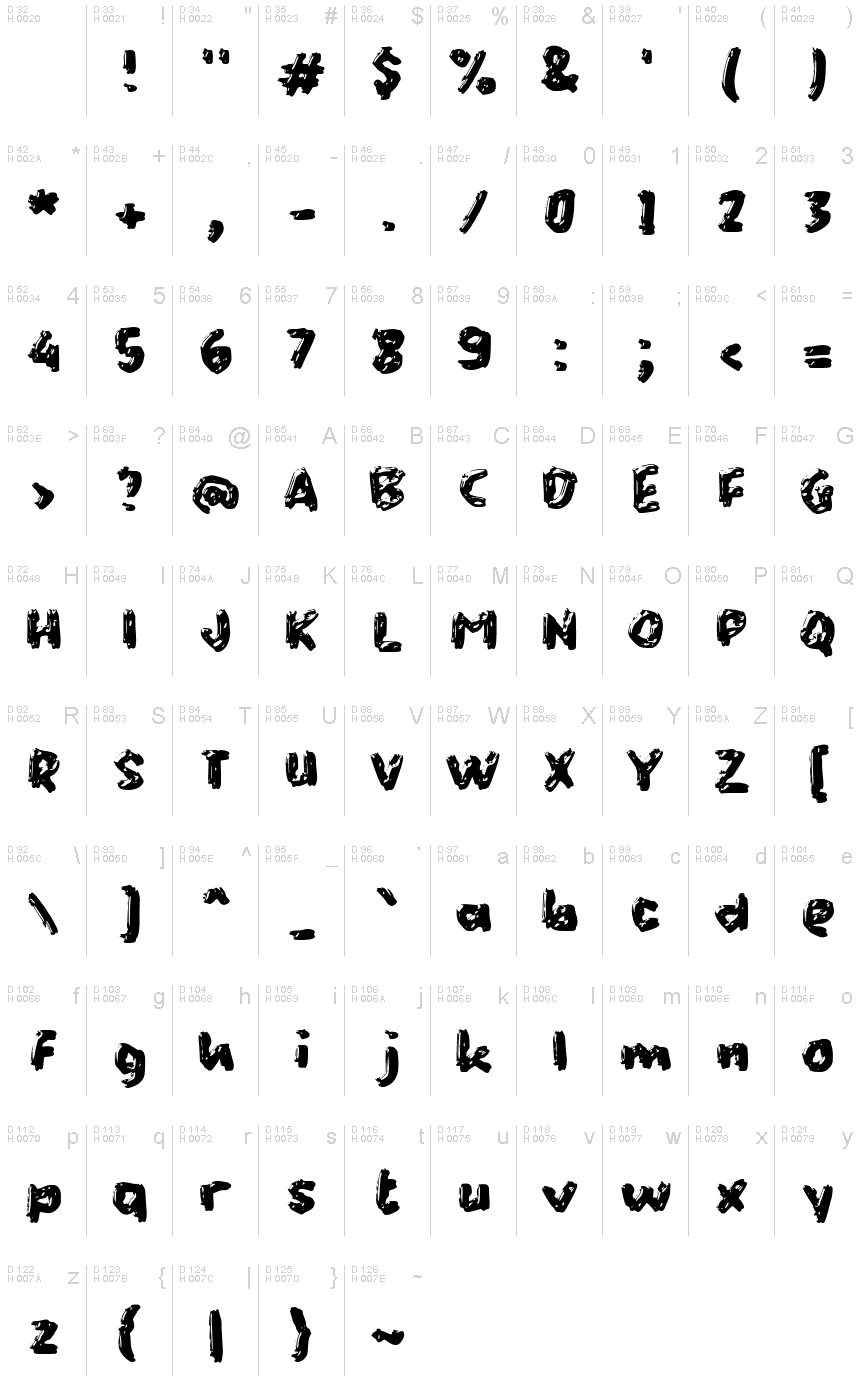
EYAO
EYAO, crafted by the talented designer wep, is an extraordinary display font that adds a touch of vintage charm to any project. With its bold and eroded style, this font is perfect for creating eye-catching logos, striking headlines, and engaging posters. Want to give your brand a unique edge? EYAO's distinctive look will make your designs stand out in the crowd. Whether you're working on a retro-inspired campaign or need to add some grit to modern visuals, EYAO is the go-to font for all your creative endeavors. Let your imagination run wild with this versatile and captivating typeface!